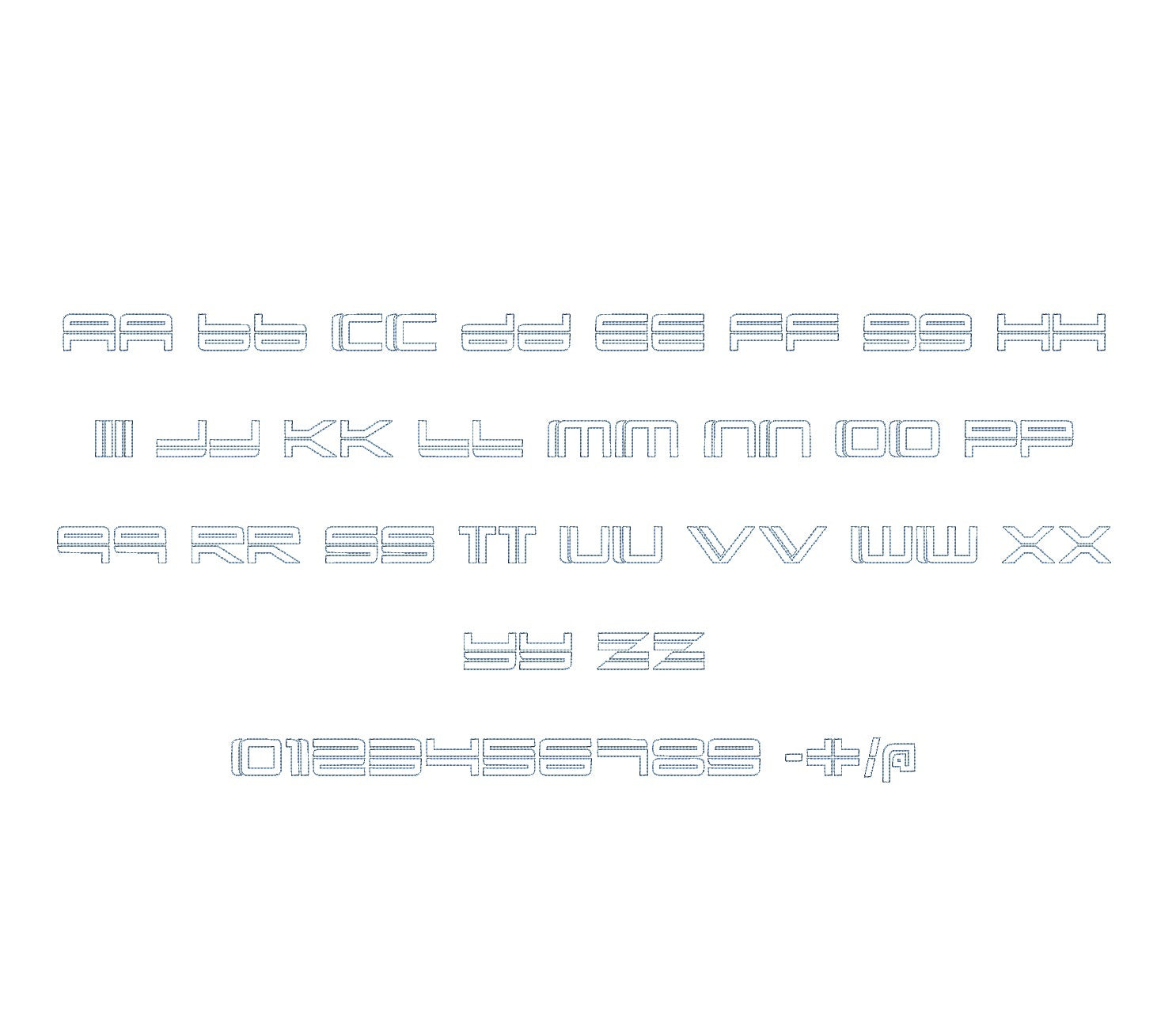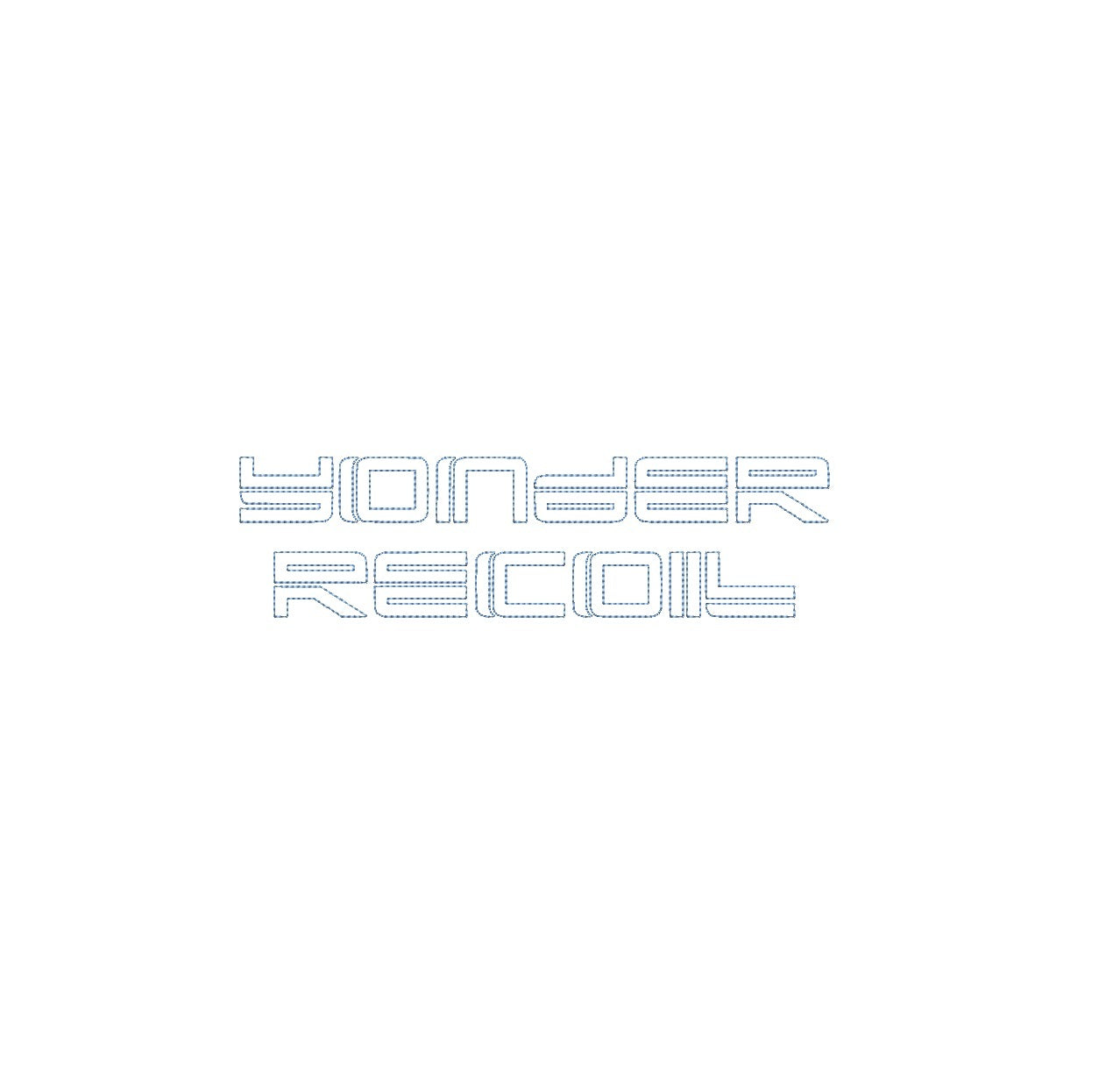
Elevate your embroidery projects with Yonder Recoil Bean Stitch Outline ESA font, compatible with Wilcom Studio e4.5.6 and Hatch 3 versions and up. This font effortlessly combines dynamic energy and precision, infusing your designs with a unique aesthetic perfect for bold monograms and embellishments. Experience seamless compatibility for exceptional results and unleash a new level of stitching finesse. Transform your creations into embroidery masterpieces that radiate strength and creativity. Elevate your projects with the Yonder Recoil Bean Stitch Outline ESA font and make your embroidery truly powerful and unforgettable.